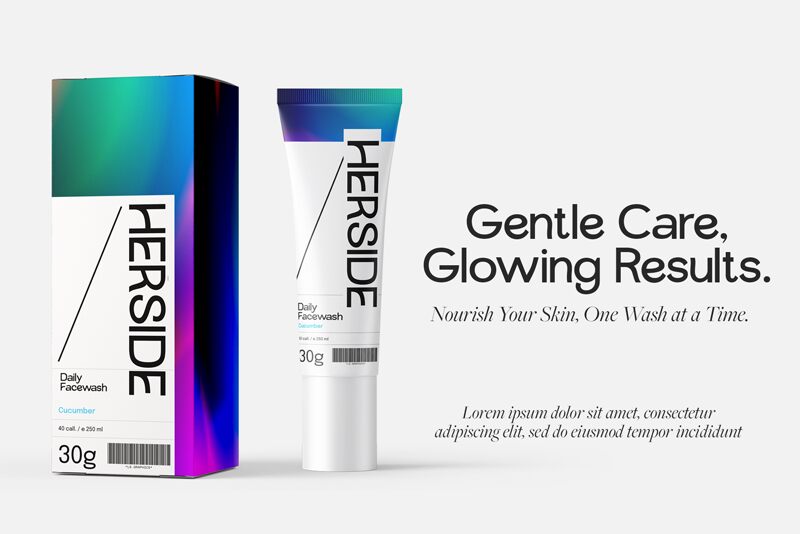
VARUNA-Regular
Varuna font by VampStudio is a free sans serif font that gives you sharp, confident letterforms without feeling cold or generic. Its tall, airy shapes and even stroke weight create a clean, contemporary rhythm that holds up at both large and medium sizes. The spacing feels deliberate and steady, so words lock together in neat, polished lines instead of drifting or crowding.
Using Varuna, you get a workhorse for branding, editorial titles, posters, web headers, packaging, signage, and slide decks. The straight lines and gentle curves read quickly, making this free font a natural choice when you need clarity with a refined edge. Pair Varuna with a simple humanist sans or light serif in smaller text to keep the focus on its sleek, sculpted caps.